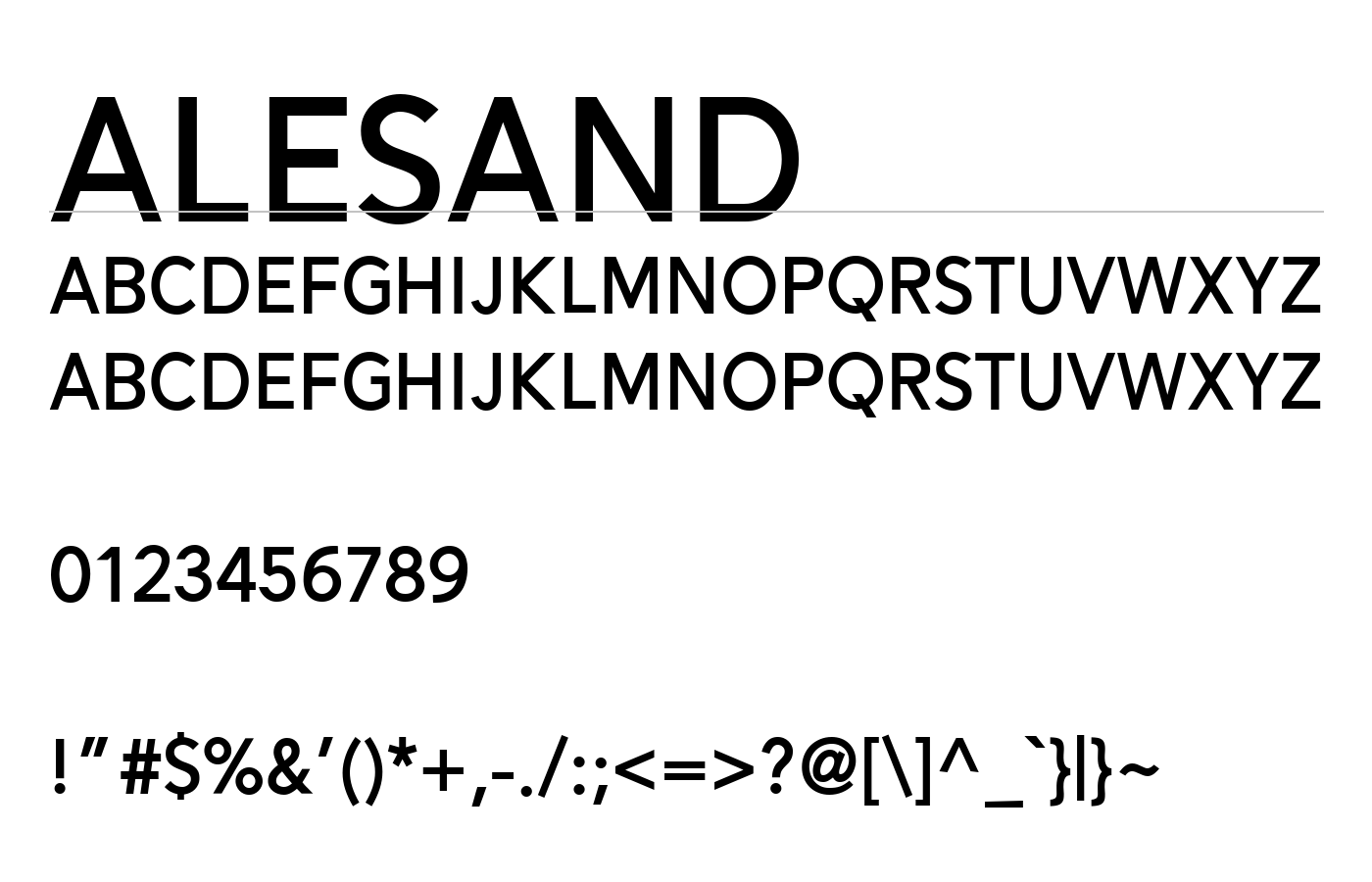
Alesand is a clean, modern sans serif font characterized by its uniform stroke weight and open, geometric letterforms. With its balanced proportions, single-story letters, and straightforward design, it offers excellent readability and a contemporary, professional feel. This versatile typeface works well for branding, websites, and editorial use where clarity and a sleek, understated style are desired.
Alesand Font
About Alesand Font
| Font family | Alesand Font |
| Designer | Solidtype Studio |